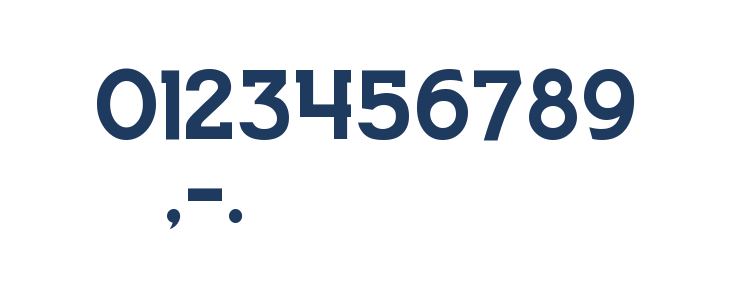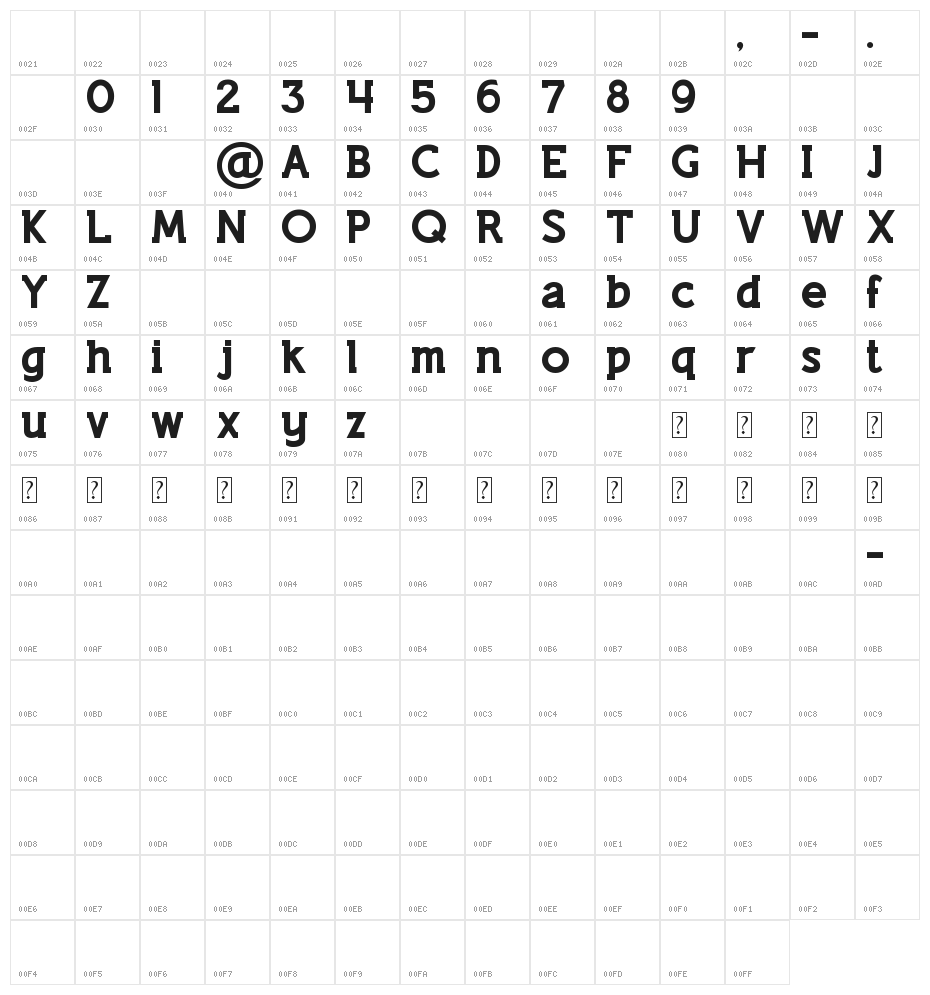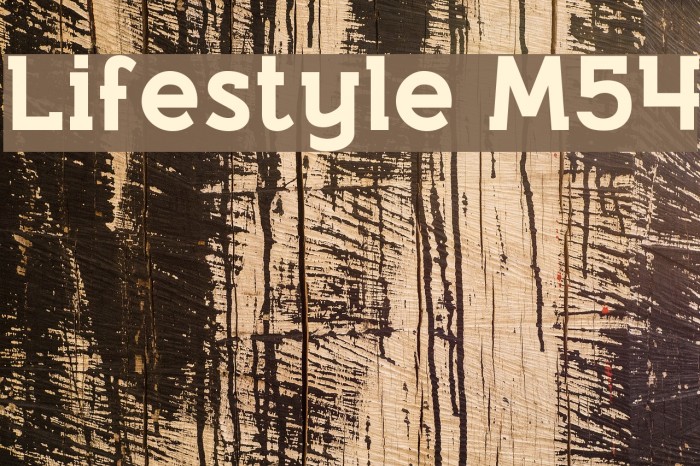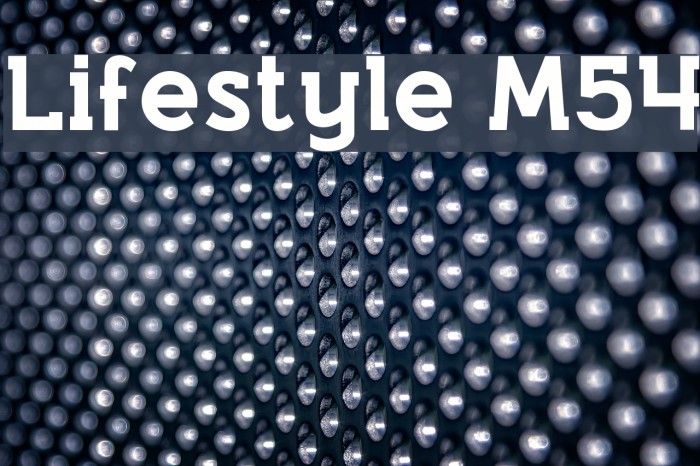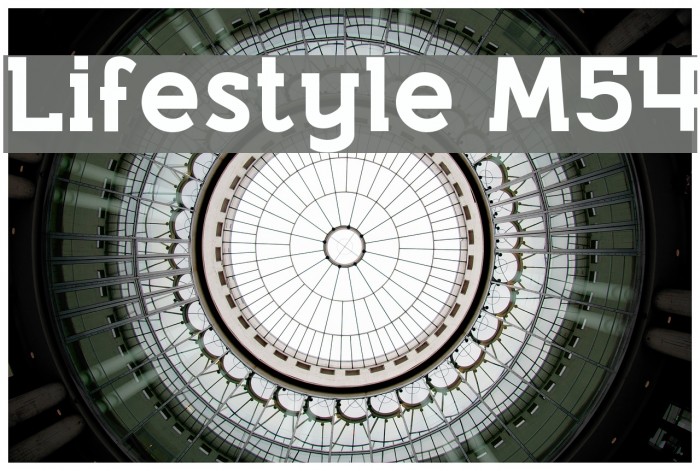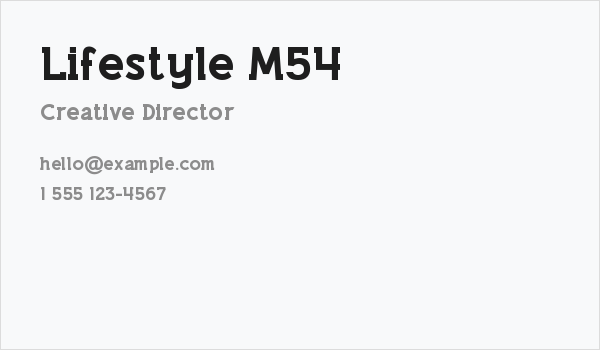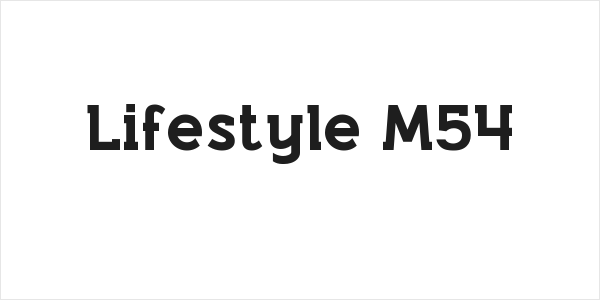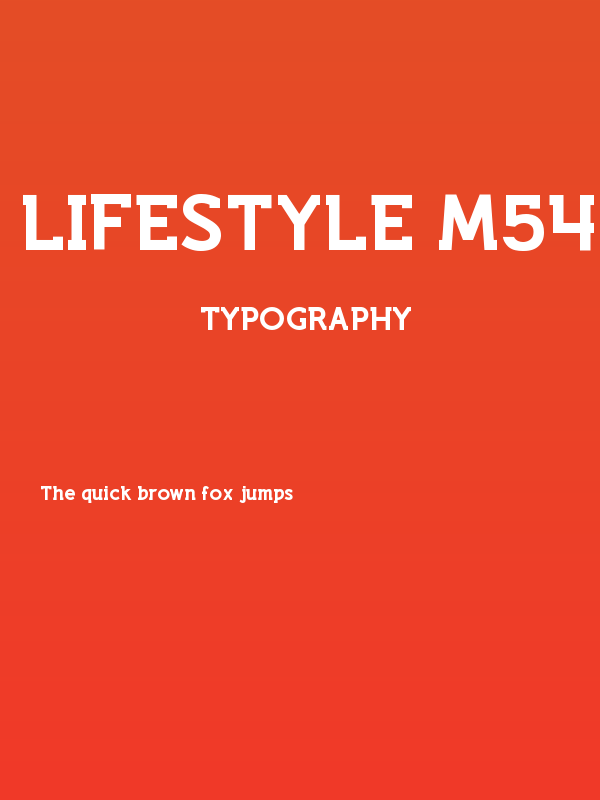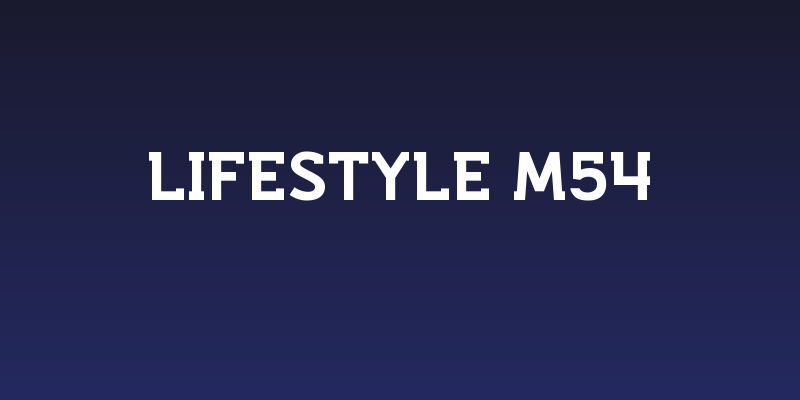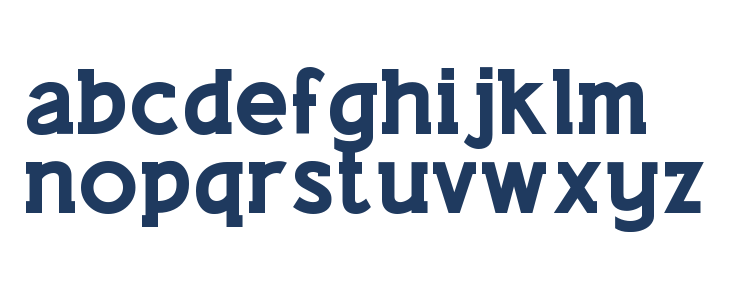
Lifestyle M54 Font
Lifestyle M54 Description
This font features a bold and robust design with strong geometric shapes and clean lines. The uppercase letters are uniform in height, creating a cohesive and balanced appearance. The lowercase letters maintain a similar weight, providing consistency throughout the typeface. The numerals are clear and legible, with a slightly modern twist that complements the overall style. Special characters are designed with the same attention to detail, ensuring they blend seamlessly with the rest of the font. This typeface is versatile, suitable for a variety of design projects where a bold and modern look is desired.
| Proposed Projects | Ideal for branding, advertising, headlines, and modern web design. |